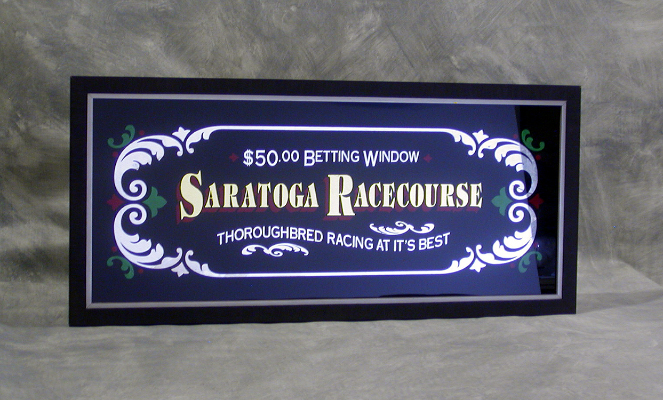
This is a piece I made a little while ago. The silver scrolls are water gilt with some 1930's vintage leaf I was given has a nice warm look to it. The water gilt gold is 22k with red drop shade... ground is black.